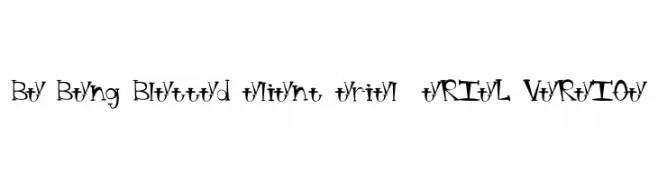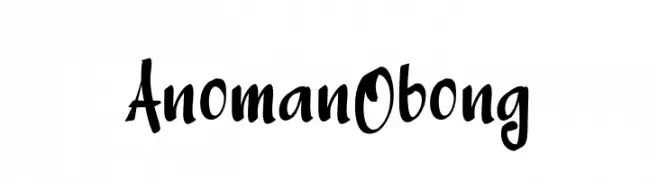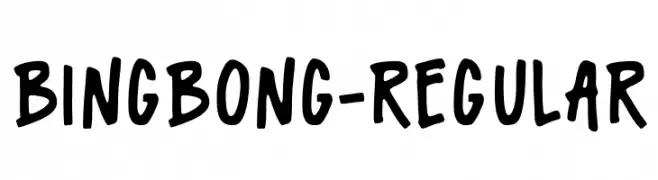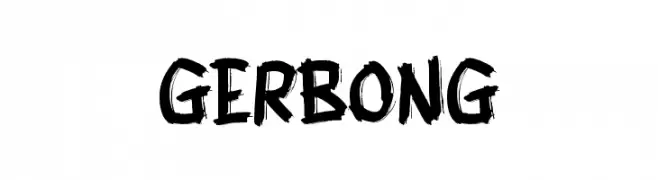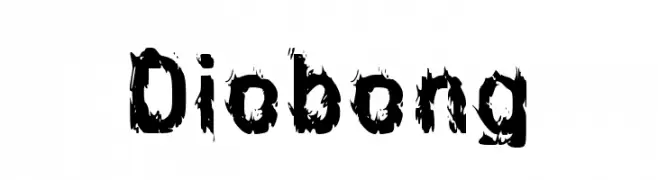
A playful and whimsical font with exaggerated, irregular letterforms.
A bold, expressive handwritten font with dynamic strokes.
A playful, bold handwritten font with rounded letterforms.
A bold, hand-drawn font with a playful and informal style.
A playful, casual handwritten font with an organic flow and friendly appearance.
A bold, playful handwritten font with rounded edges and a casual style.
A bold, playful font with rounded, hand-drawn strokes.
A bold, expressive handwritten font with dynamic and playful characteristics.
A bold, brush-style font with dynamic and energetic strokes.
A rugged, distressed font with jagged, weathered edges.